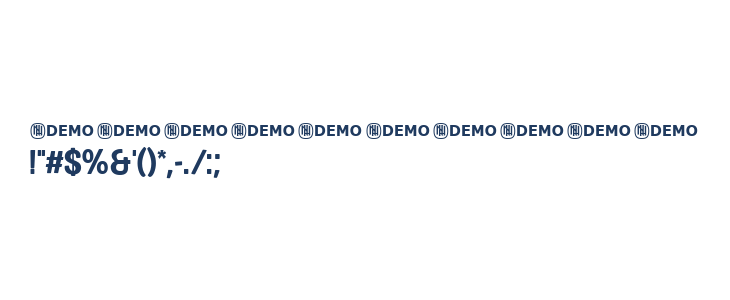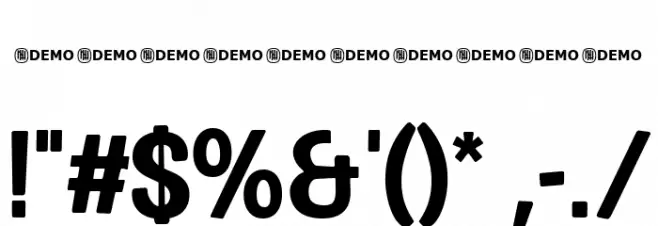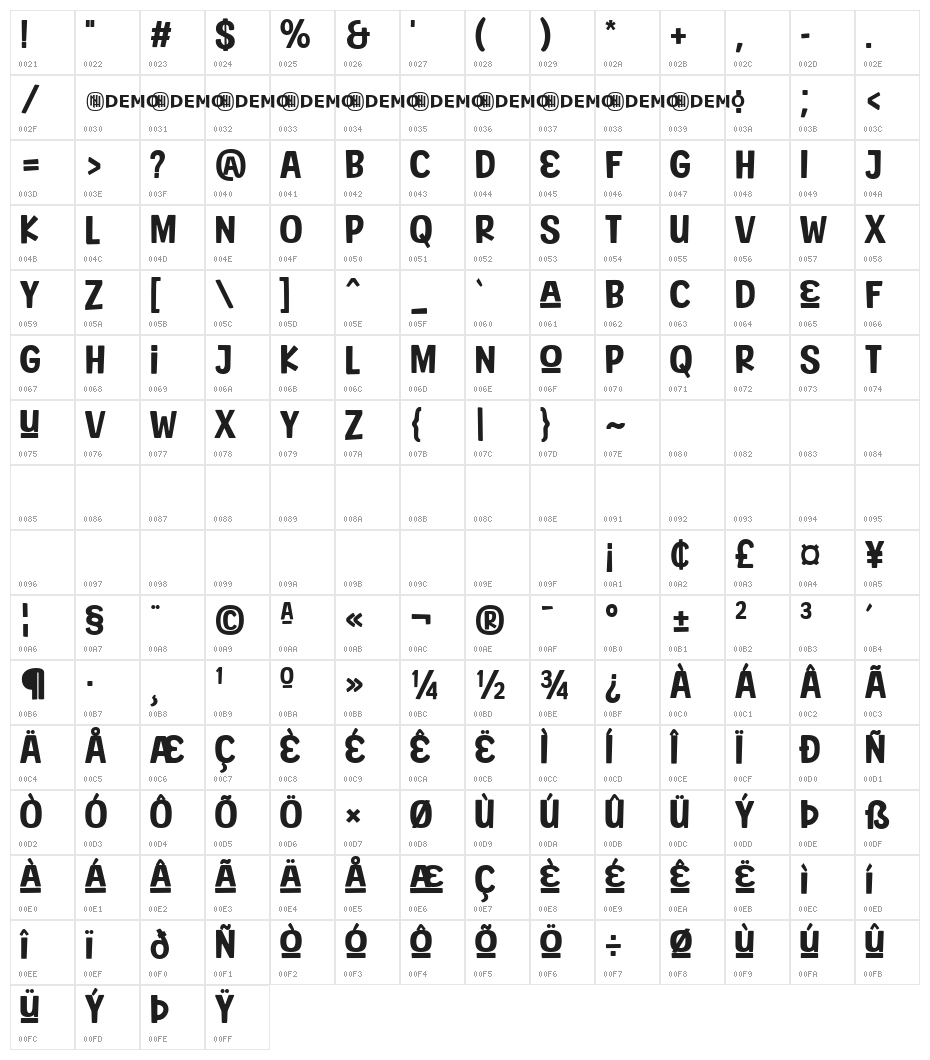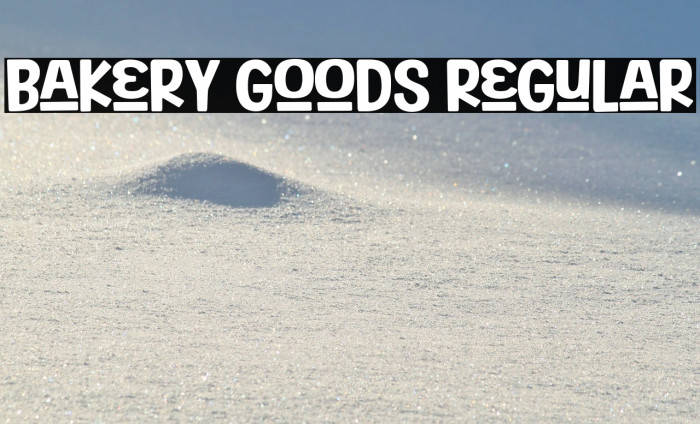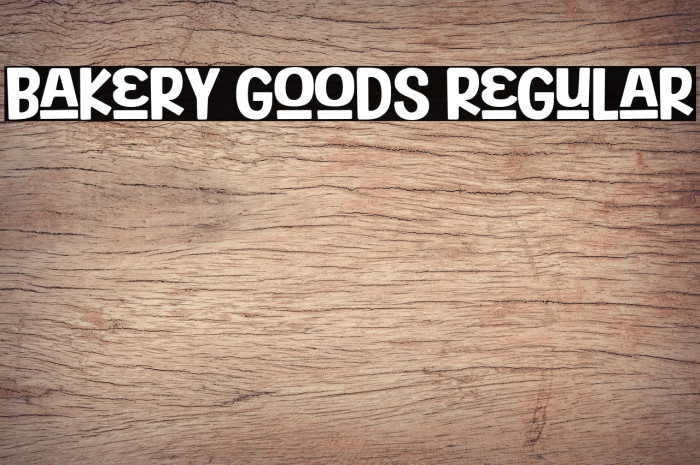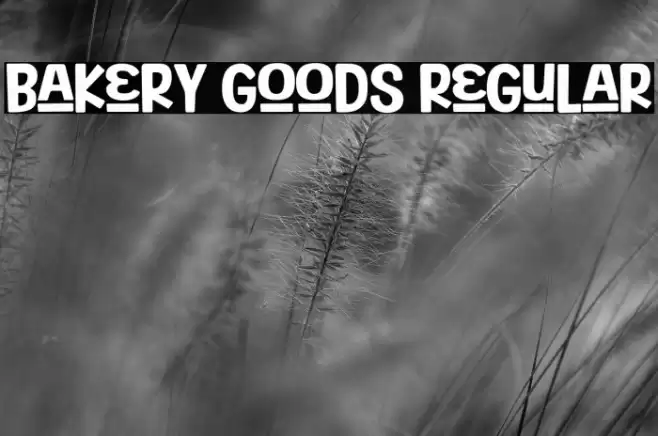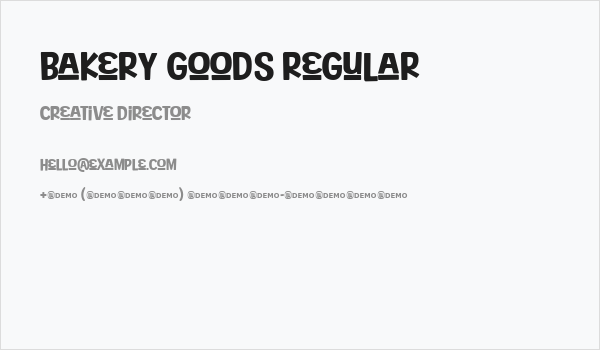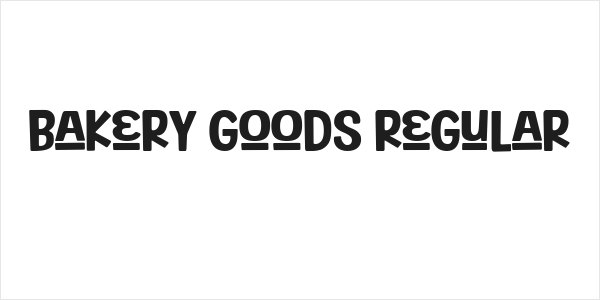
Bakery Goods Regular Font
Bakery Goods Regular Description
This font features a bold and playful design with a unique, handcrafted appearance. The characters are slightly irregular, giving them a charming and whimsical feel. The uppercase letters are robust and have a strong presence, while the lowercase letters maintain a consistent style that complements the overall look. The numbers and special characters are designed to match the playful aesthetic, making them suitable for creative and informal projects. The font's thick strokes and rounded edges contribute to its friendly and approachable vibe, making it ideal for branding, packaging, and other design projects that require a touch of personality.
| Overall Style | Playful, Handcrafted |
| Use Case | Logos, Headlines, Packaging |
| Proposed Projects | Ideal for branding, packaging, children's books, and creative design projects. |